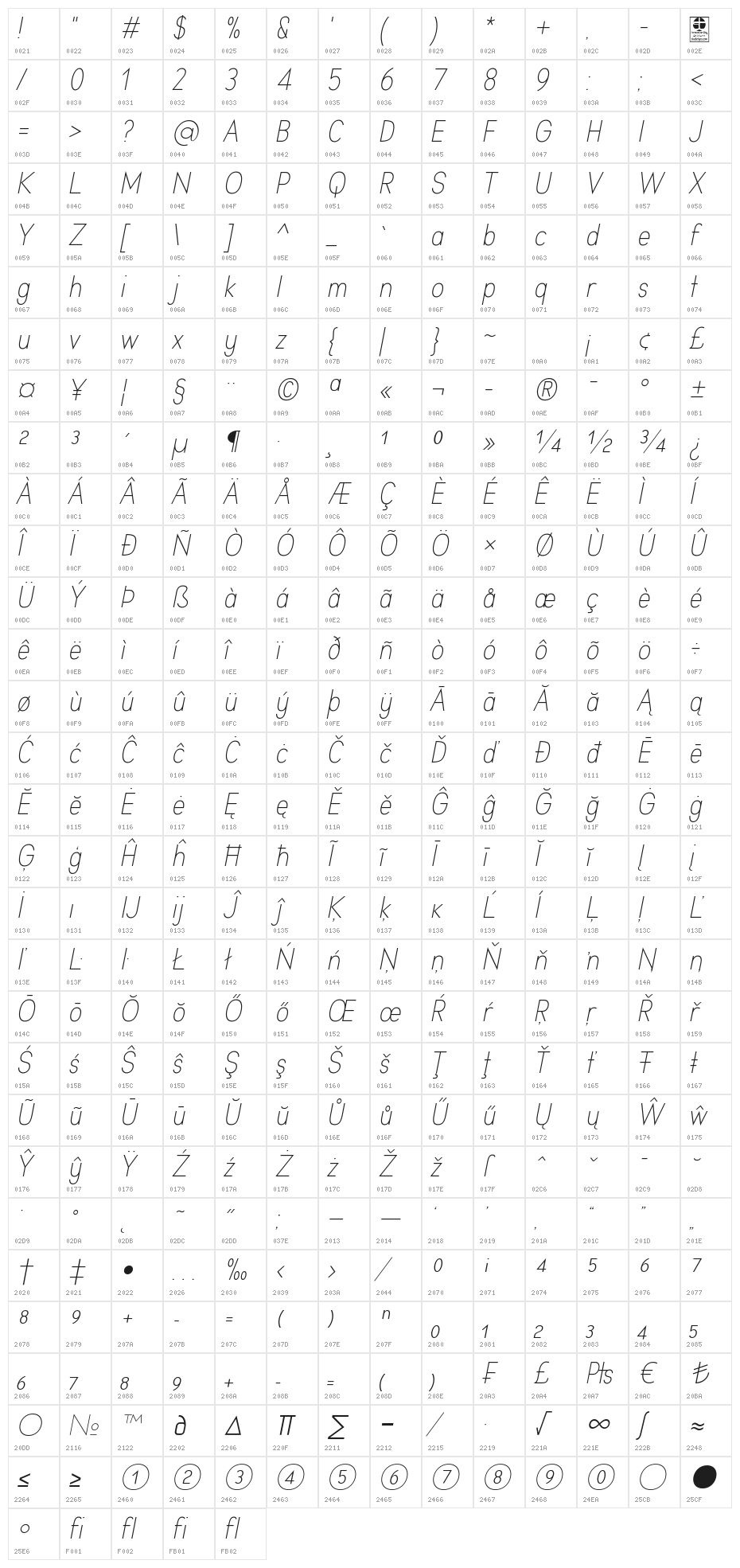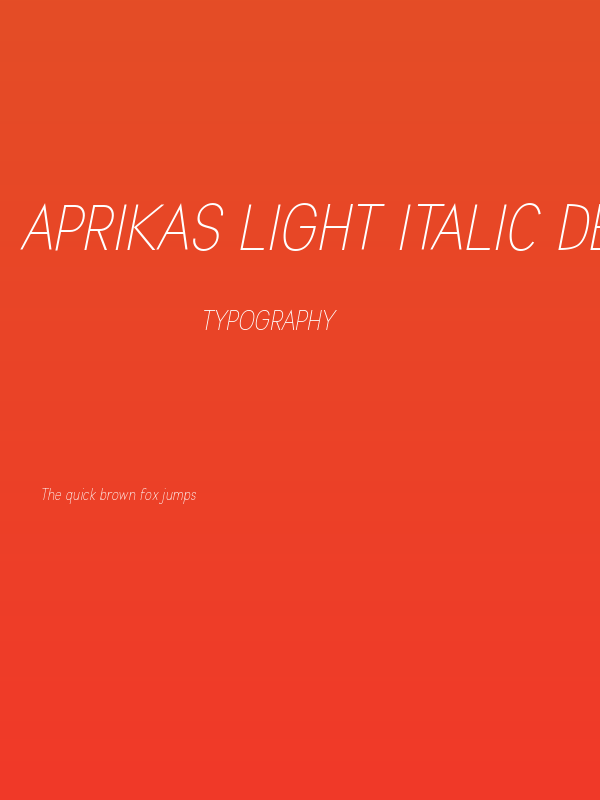
Aprikas Light Italic Demo Font
Aprikas Light Italic Demo Description
This font features a sleek and elegant design with a light and airy feel. The characters are slightly slanted, giving it an italic style that adds a sense of motion and sophistication. The strokes are thin and consistent, contributing to a clean and modern appearance. The spacing between characters is balanced, ensuring readability while maintaining a stylish look. This font is versatile, suitable for both digital and print media, and can enhance the visual appeal of any project with its refined aesthetic.